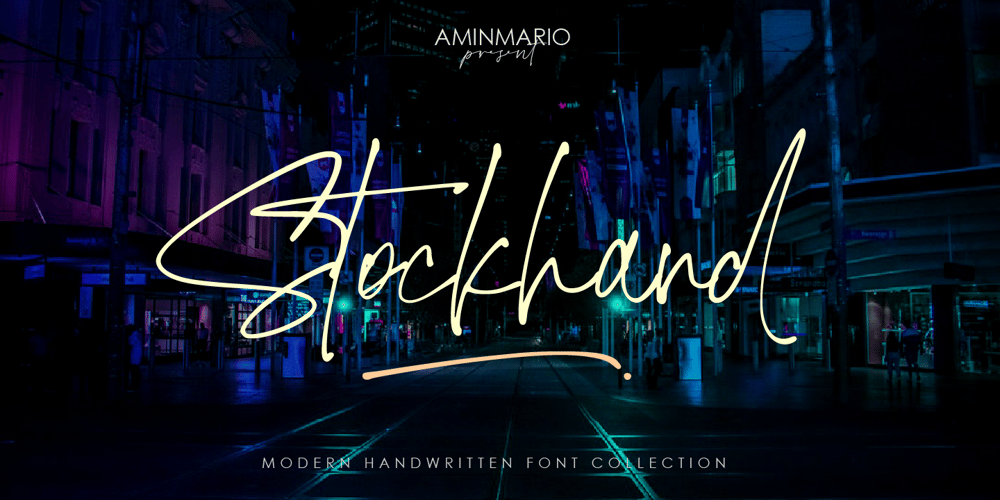
Stockhand
Stockhand font
Stockhand Font Family was designed by Amin Maryono and published by Aminmario Studio. Stockhand contains 2 styles and family package options. IntroducingStockholm font is charming and elegant handwritten with a quick stroke pen effect. This font was created to look as close to a natural handwritten script, as possible by including lowercase alternates, ligature and underlines. Perfect for any awesome projects that need hand writing taste.Comes with regular and italic. With built in Opentype features, this script comes to life as if you were writing it yourself.What’s included:Stockholm (ttf.otf.web) Stockholm Italic (ttf.otf.web)Don’t hesitate if you have any questions. Thanks for checking out this font. I hope you enjoy it!AminMario